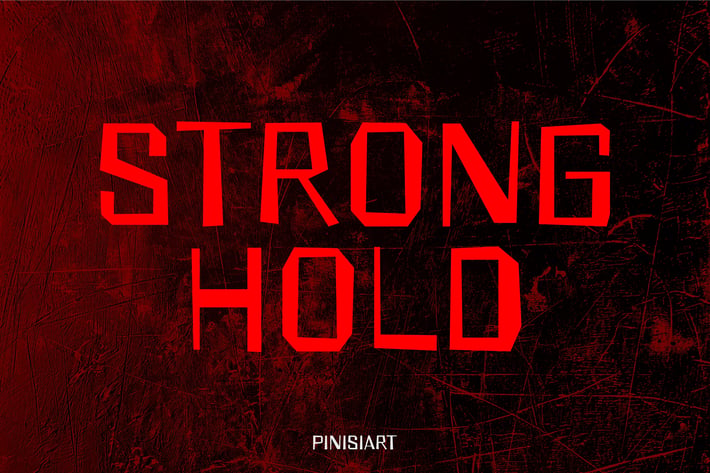
Music Font - Stronghold
STRONGHOLD is a bold, impactful typeface designed to evoke strength and intensity. Its sharp, geometric lines and industrial-inspired shapes make it perfect for projects that demand attention and convey power. Moreover, with edgy and commanding elements, STRONGHOLD captures the energy of heavy music genres, from rock to metal. At the same time, it maintains modernity and sophistication. Additionally, the font’s angular design and clean cuts add discipline, making it versatile for music branding and creative purposes.